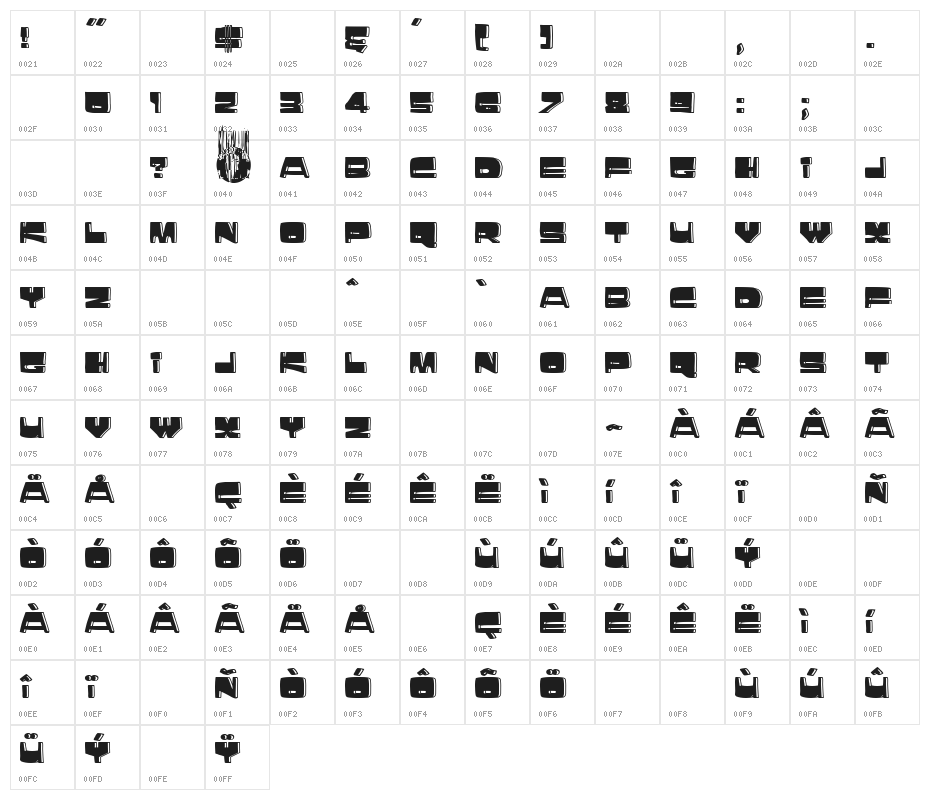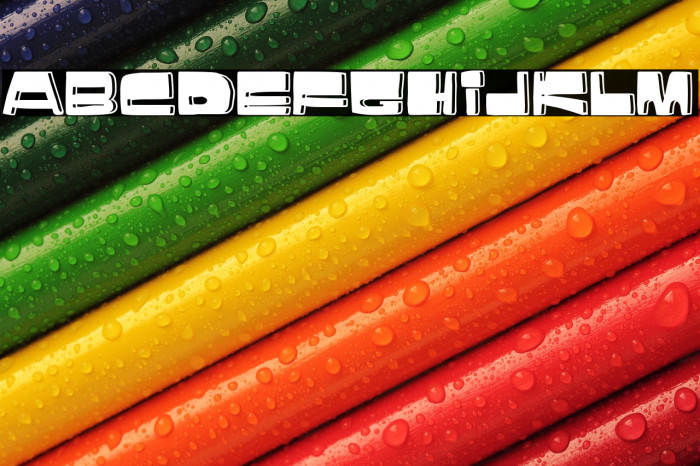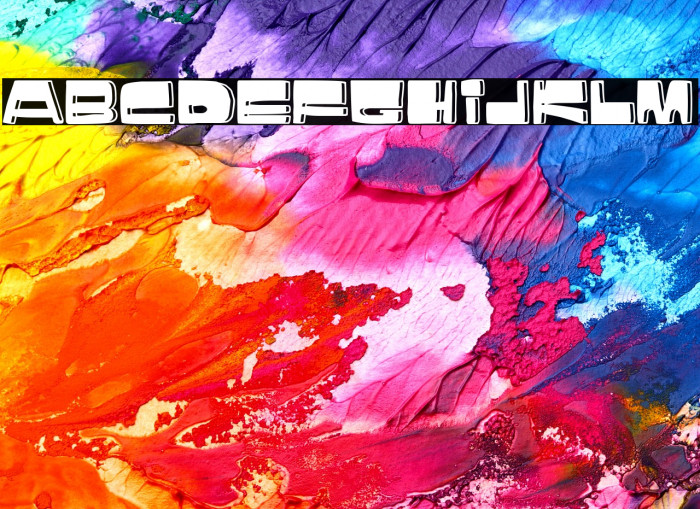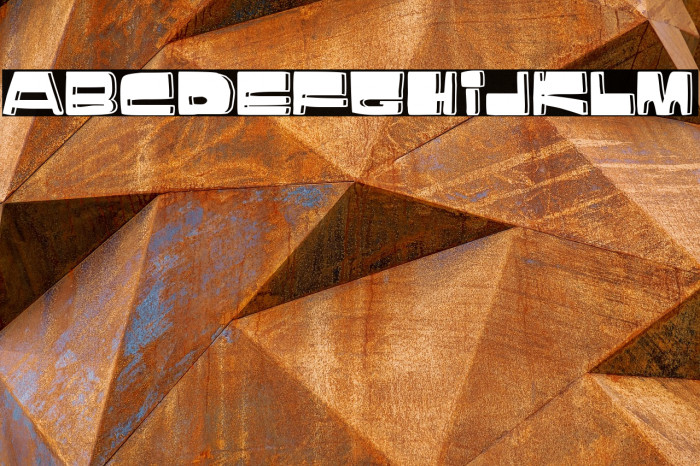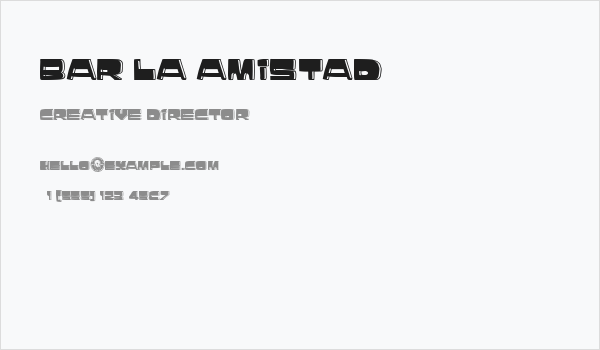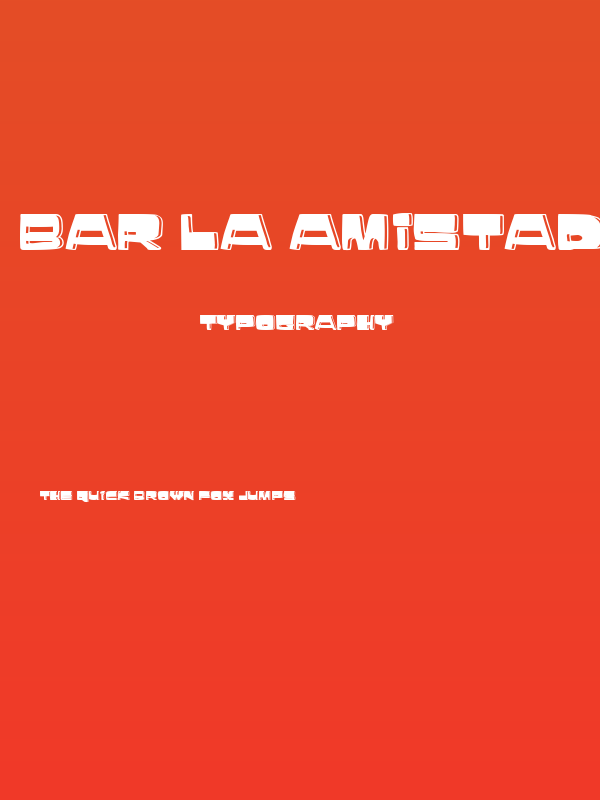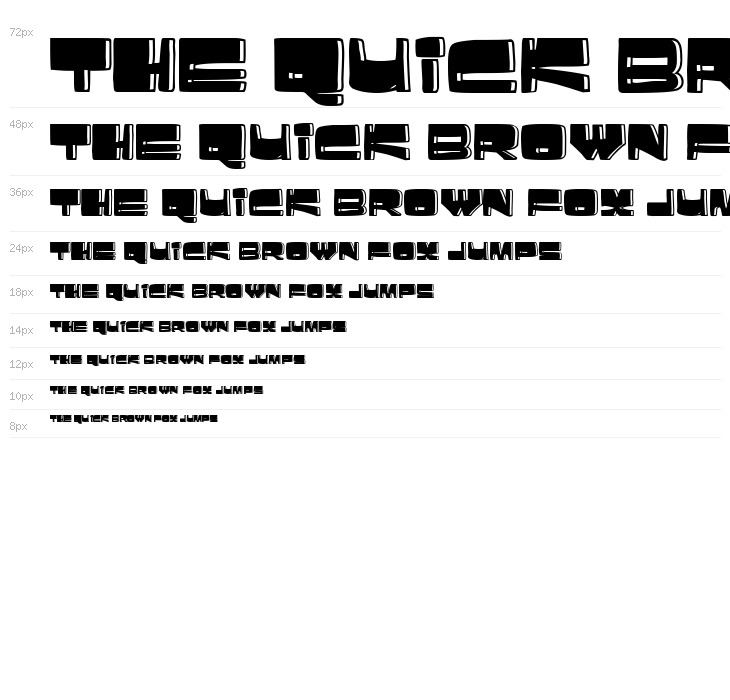
Bar La Amistad Font
Bar La Amistad Description
This font features a bold and striking design with a distinctly modern and decorative style. Each character is crafted with a blocky, geometric structure, giving it a strong and impactful appearance. The letters are filled with solid black, creating a high contrast against any background. The unique cutouts and angular shapes within each character add a dynamic and edgy feel, making it stand out in any design. The font includes both uppercase and lowercase letters, numbers, and a selection of special characters, all maintaining the same bold and geometric aesthetic. Its distinctive style makes it ideal for projects that require a strong visual impact.